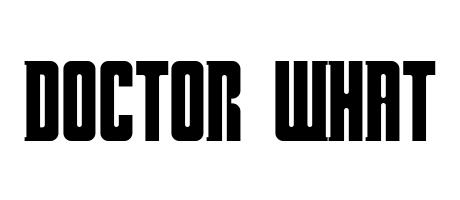
Doctor What
By Heliagon
Doctor What: A bold, sans-serif typeface screams across the canvas. Its chunky, almost block-like letters exude a retro-futuristic vibe, hinting at science fiction and possibly a touch of rebellious spirit. The uniform weight and spacing create a strong, decisive statement — no room for ambiguity here.